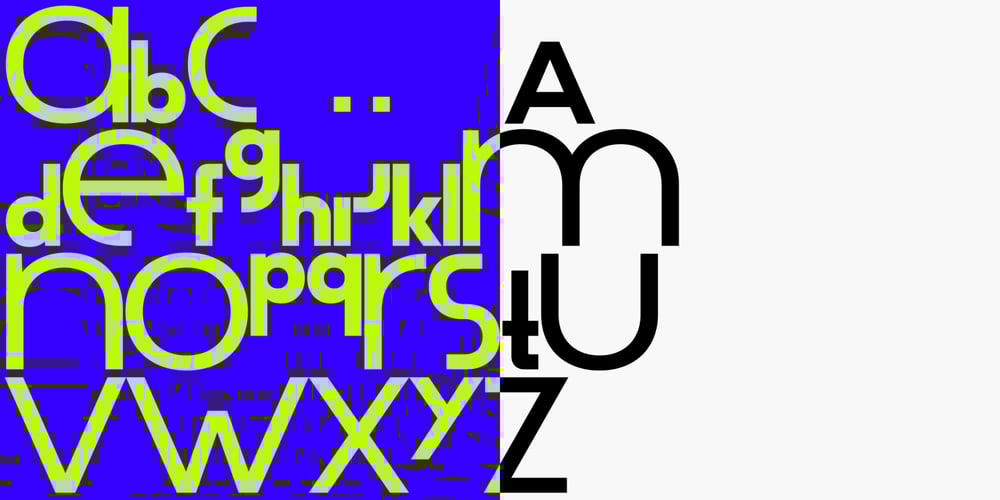
Politip Font Family was designed by Benoît Bodhuin and published by bb-bureau. Politip contains 42 styles and family package options. Politip is polytypes!A simple and geometric typeface designed on 6 different grids (A, B, C, D, E and F) so as to play with the weightlessness of typography: vertical proportions (eye of type). These 6 drawings the vertical proportions = the ratio between x-height and height of caps. This game creates new rules and new relationships between letters.A very versatile type.— Weight: from Thin to Heavy— Height: from A to F— Opentype Features: locl, subs, sinf, sups, numr, dnom, frac, ordn, lnum, onum, salt, ss01 and calt